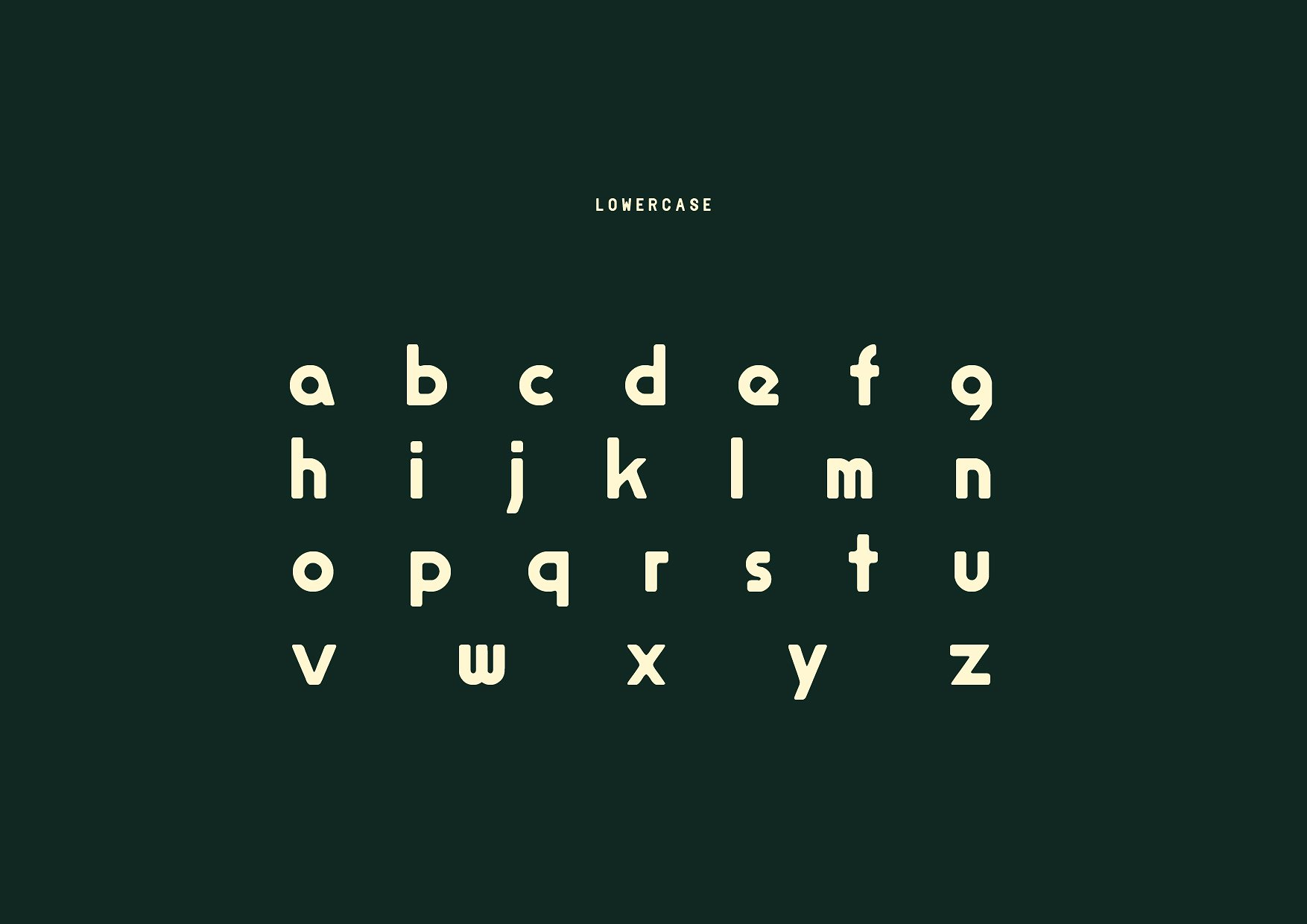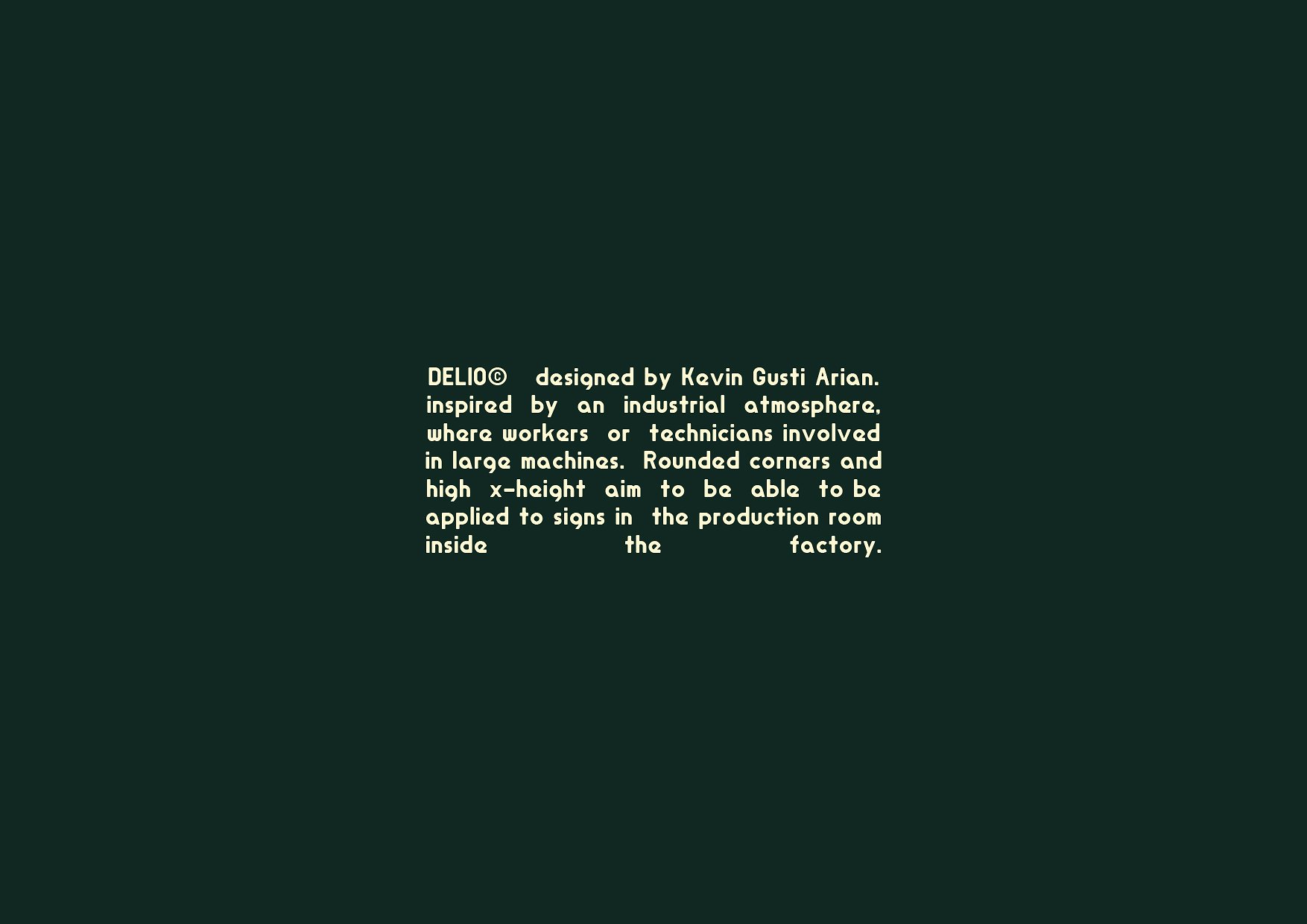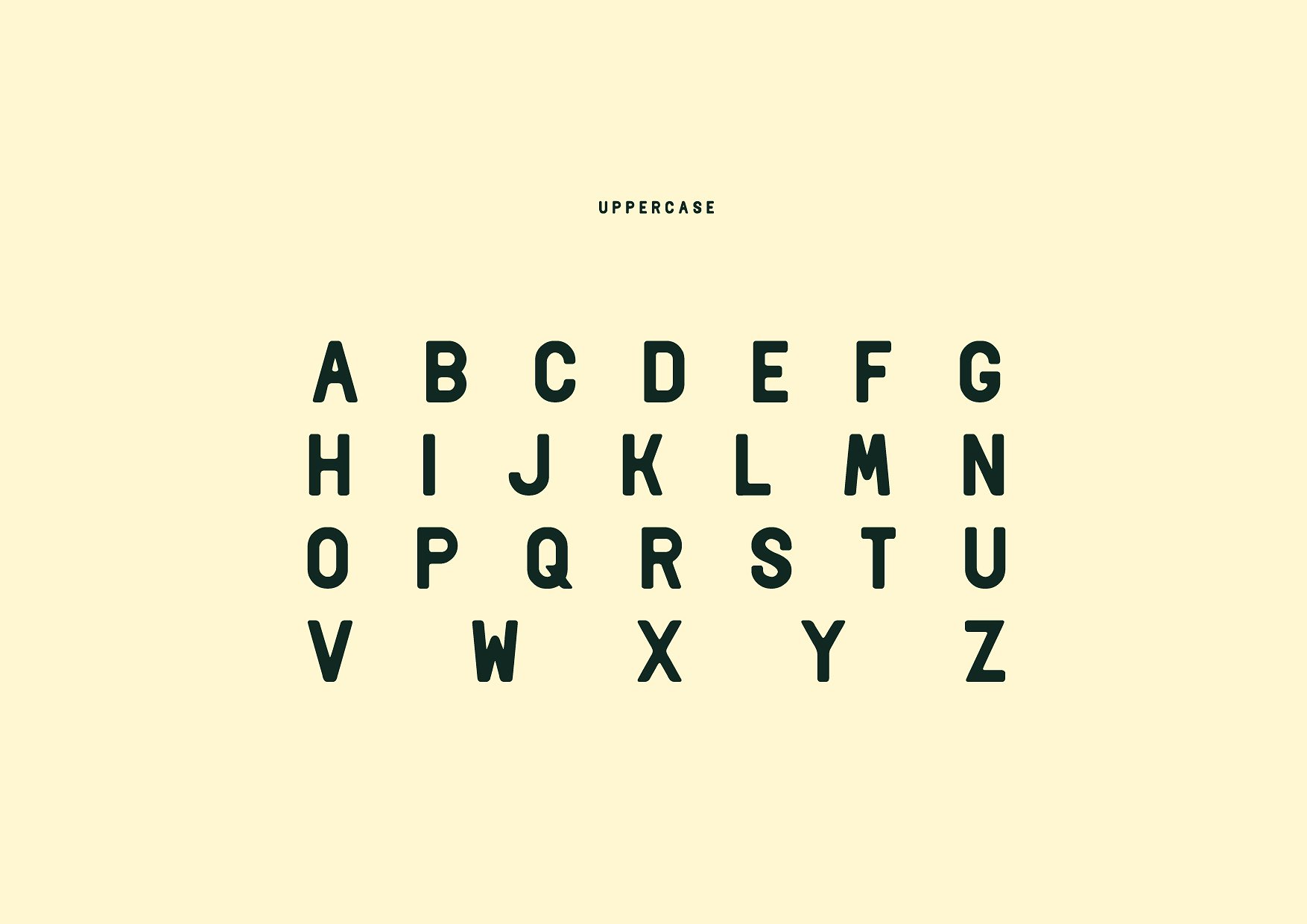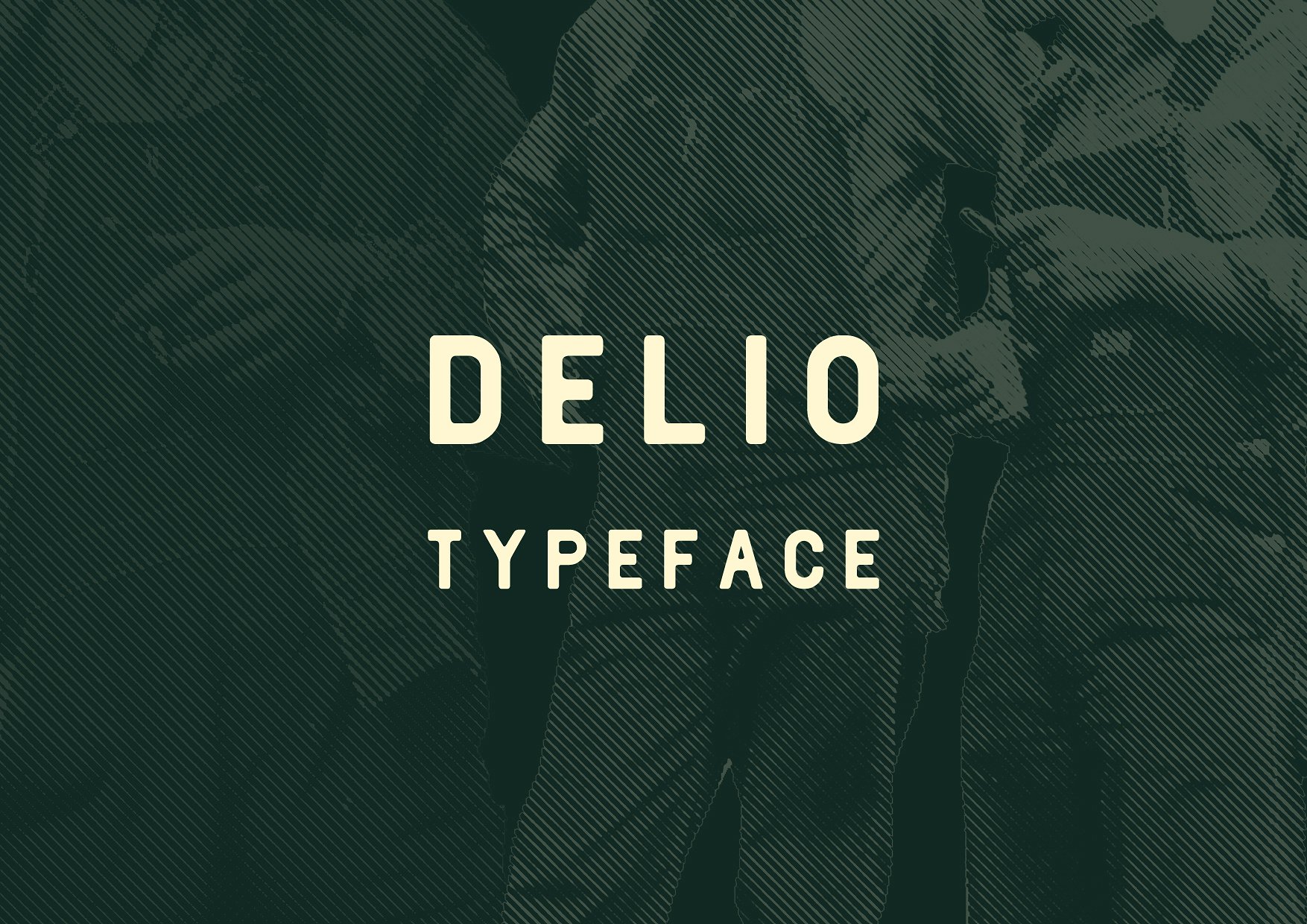
Delio Typeface
Hello guys. I think this font is perfect for people looking for vintage aesthetic or handdrawn logo. Introducing Delio Sans Serif Font. Delio Typeface inspired by an industrial atmosphere, where workers or technicians involved in large machines. Rounded corners and high x-height aim to be able to be applied to signs in the production room inside the factory.